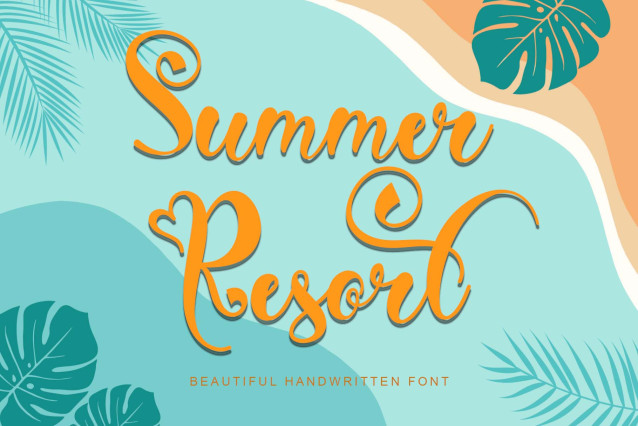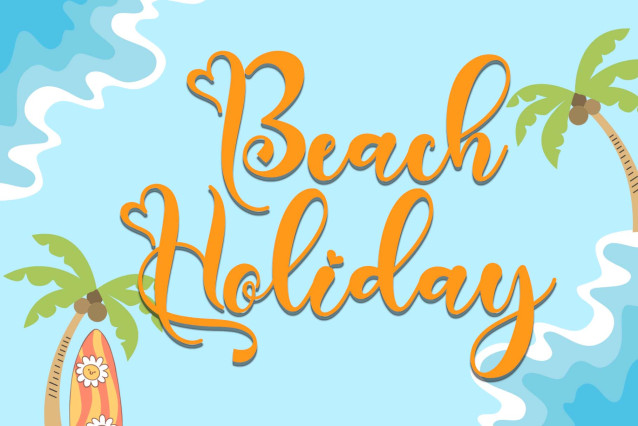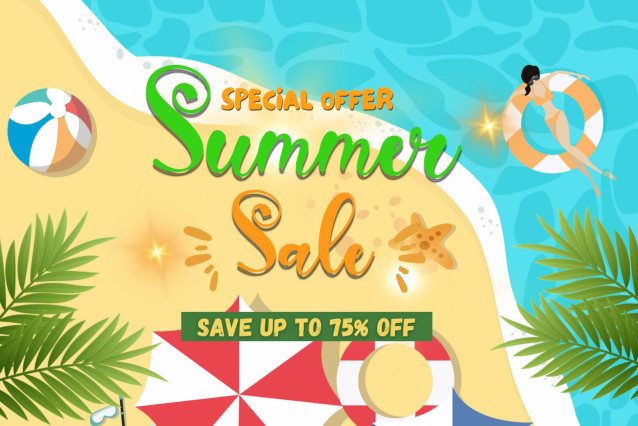
Summer Resort Font
Summer Resort Font is a beautiful and elegant handwritten font. This font is equipped with uppercase, lowercase, numerals, punctuations and multilingual support. It is suitable for summer, vacation, holiday, spring, invitations, logos, stickers, posters, prints, camping and others.